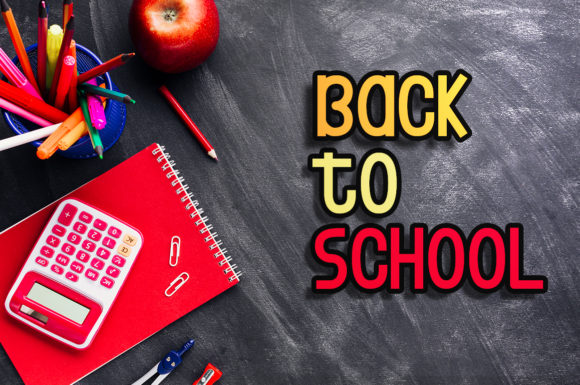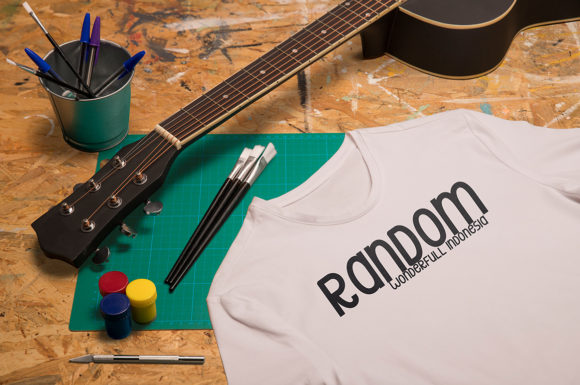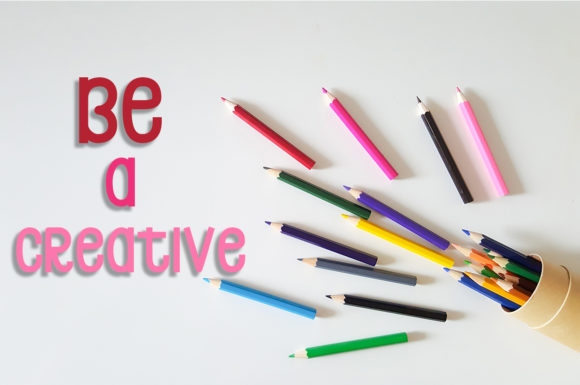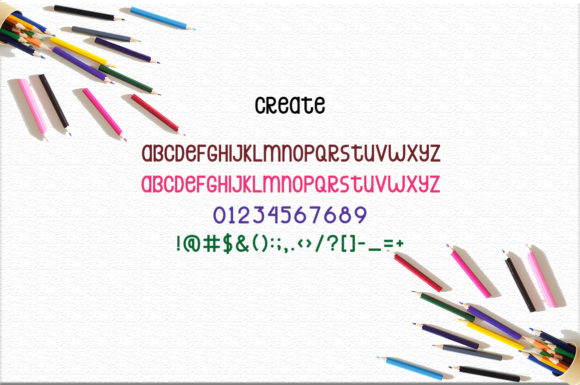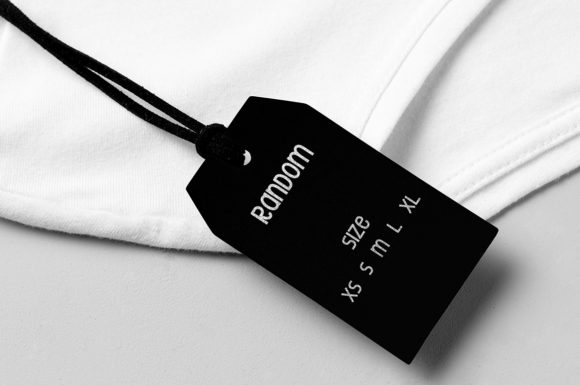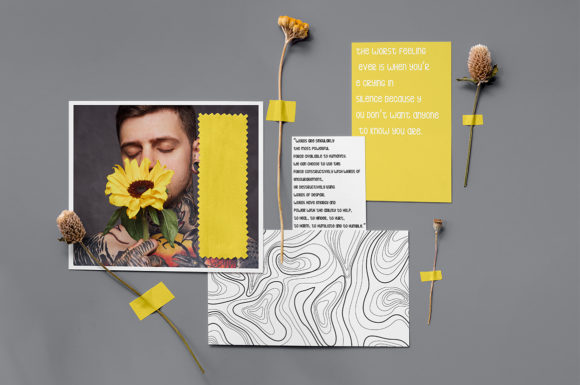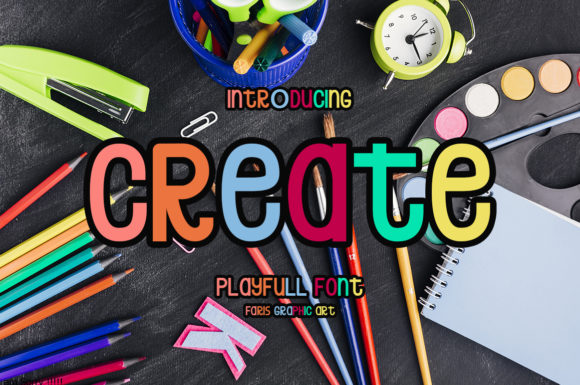
Create Font: The Cute and Playful Display Font for Your Creative Projects
Are you looking for a font that can add a touch of friendliness and quirkiness to your designs? Look no further than Create Font, a cute and playful display font that’s perfect for logos, branding, posters, and crafty DIY projects. In this article, we’ll take a closer look at Create Font, its features, and how you can use it to elevate your designs.
What is Create Font?
Create Font is a display font designed to make your designs stand out. Its friendly and quirky personality makes it an excellent choice for designers and crafters who want to add a personal touch to their work. The font is characterized by its rounded edges, playful curves, and bold lines, giving it a unique and eye-catching appearance.
Key Features of Create Font
- Cute and Playful: Create Font is designed to be fun and playful, making it perfect for designs that require a lighthearted touch.
- Display Font: Create Font is a display font, which means it’s designed to be used at larger sizes, making it perfect for headlines, titles, and logos.
- Quirky and Friendly: The font has a quirky and friendly personality, making it an excellent choice for designs that require a personal touch.
- Versatile: Create Font can be used for a wide range of designs, from logos and branding to posters and crafty DIY projects.
How to Use Create Font in Your Designs
Create Font is an excellent choice for designers and crafters who want to add a personal touch to their work. Here are some ideas on how to use Create Font in your designs:
- Logos and Branding: Use Create Font to create unique and eye-catching logos and branding materials that reflect your brand’s personality.
- Posters and Flyers: Create Font is perfect for posters and flyers that require a bold and attention-grabbing headline.
- Crafty DIY Projects: Add a personal touch to your crafty DIY projects, such as handmade cards, gift tags, and scrapbooking pages.
- Social Media Graphics: Use Create Font to create engaging social media graphics that stand out from the crowd.
Tips for Using Create Font Effectively
Here are some tips for using Create Font effectively in your designs:
- Use it in Large Sizes: Create Font is designed to be used at larger sizes, so make sure to use it in sizes that are 24px or larger.
- Experiment with Colors: Create Font looks great in bold and bright colors, so don’t be afraid to experiment with different color combinations.
- Pair it with Other Fonts: Create Font can be paired with other fonts to create a unique and interesting contrast.
- Keep it Simple: Create Font is a bold font, so make sure to keep your design simple and clean to avoid overwhelming the font.
Create Font is a cute and playful display font that’s perfect for designers and crafters who want to add a personal touch to their work. Its friendly and quirky personality makes it an excellent choice for logos, branding, posters, and crafty DIY projects. With its bold and eye-catching appearance, Create Font is sure to make your designs stand out from the crowd.